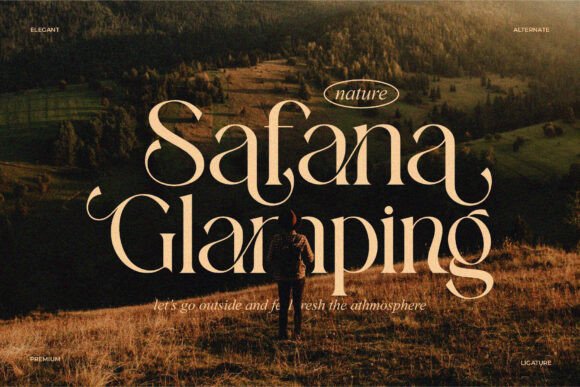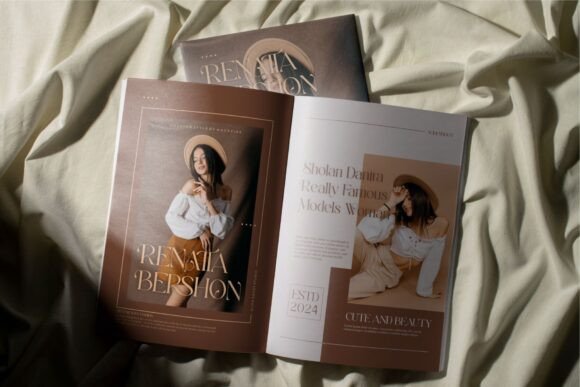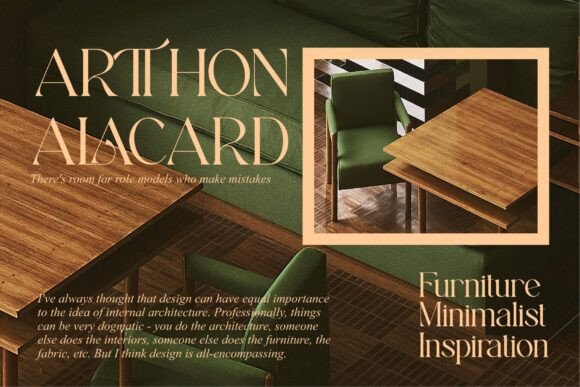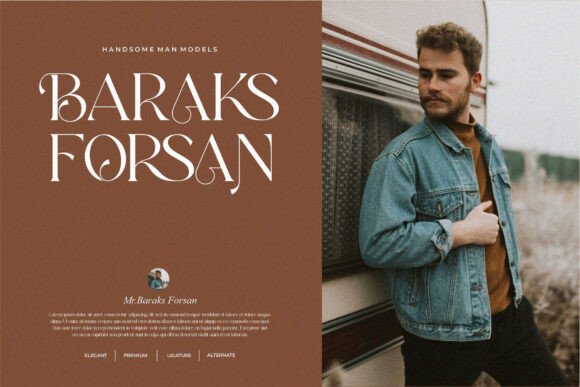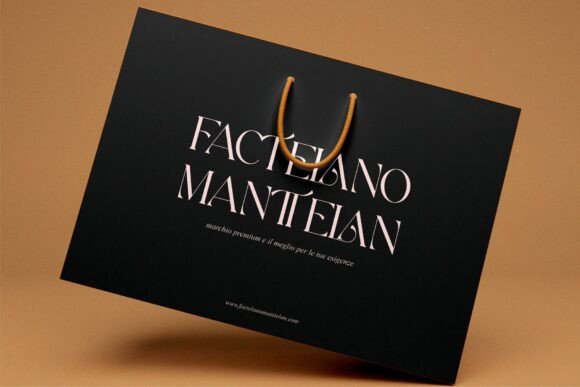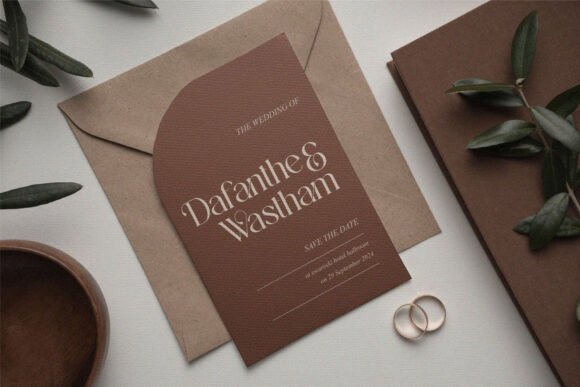
Introducing Biors Font: Elevate Your Designs with Modern Elegance
In the world of typography, a font can make or break a design. For designers and crafters seeking a modern and classy touch, Biors Serif font is an excellent choice. This smooth serif font exudes sophistication and elegance, making it perfect for various design projects. In this article, we’ll explore the features and benefits of Biors Font, and how it can elevate your branding, logo designs, and more.
What is Biors Font?
Biors Serif is a modern and classy font type, designed to add a touch of sophistication to any design. Its beautiful character and stylish alterations make it an excellent choice for designers seeking a unique and elegant look. This font is suitable for a wide range of applications, including invitation card designs, cool logos, movie titles, movie names, business cards, book titles, brand names, and various other designs.
Key Features of Biors Font
- Modern and Classy Design: Biors Serif boasts a sleek and contemporary design, perfect for designers seeking a modern look.
- Smooth Serif: The font features smooth serif lines, adding a touch of elegance to any design.
- Stylish Alterations and Ligatures: Biors Serif includes stylish alterations and ligatures, making it a perfect partner for any project.
- Sophisticated and Elegant: The font exudes sophistication and elegance, making it ideal for high-end designs.
Use Cases for Biors Font
Biors Serif font is versatile and can be used in various design projects, including:
- Branding and Logo Designs: Create a lasting impression with a modern and classy logo that reflects your brand’s personality.
- Invitation Card Designs: Add a touch of elegance to your invitation cards, making them perfect for special occasions.
- Movie Titles and Names: Use Biors Serif to create captivating movie titles and names that grab attention.
- Business Cards: Stand out from the crowd with a stylish business card design that showcases your professionalism.
- Book Titles and Brand Names: Use Biors Serif to create beautiful book titles and brand names that reflect your publication’s or brand’s identity.
Benefits of Using Biors Font
By choosing Biors Serif font for your design projects, you’ll enjoy several benefits, including:
- Unique and Elegant Look: Biors Serif offers a distinctive and sophisticated look that sets your designs apart.
- Versatility: The font is suitable for various design projects, making it a great addition to your font library.
- Easy to Read: Biors Serif is designed to be easy to read, ensuring your message is conveyed clearly.
- High-Quality Design: The font is crafted with attention to detail, ensuring a high-quality design that reflects your professionalism.
Biors Serif font is an excellent choice for designers and crafters seeking a modern and classy touch for their designs. Its smooth serif lines, stylish alterations, and ligatures make it a perfect partner for any project. With its versatility, elegance, and sophistication, Biors Font is sure to elevate your branding, logo designs, and more. Add Biors Serif to your font library today and experience the difference it can make in your designs.